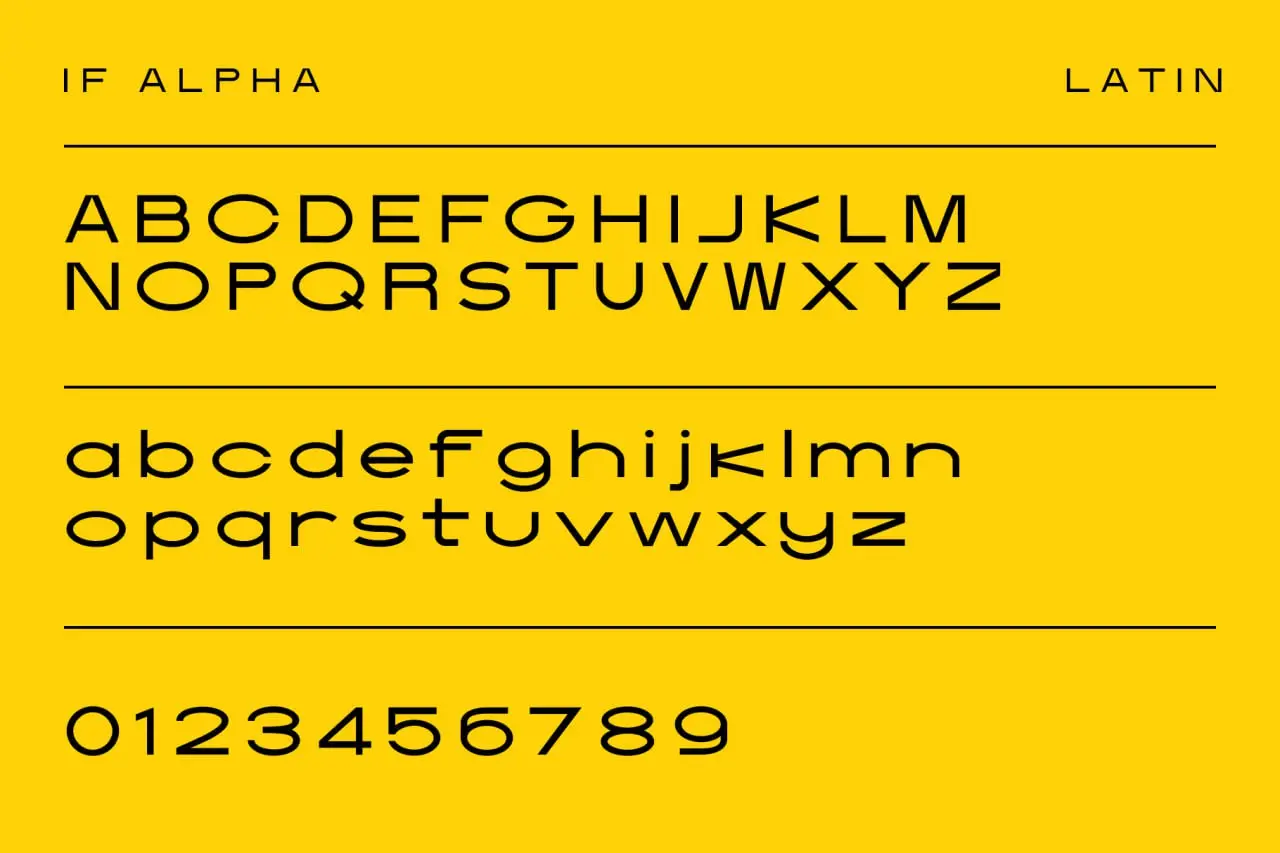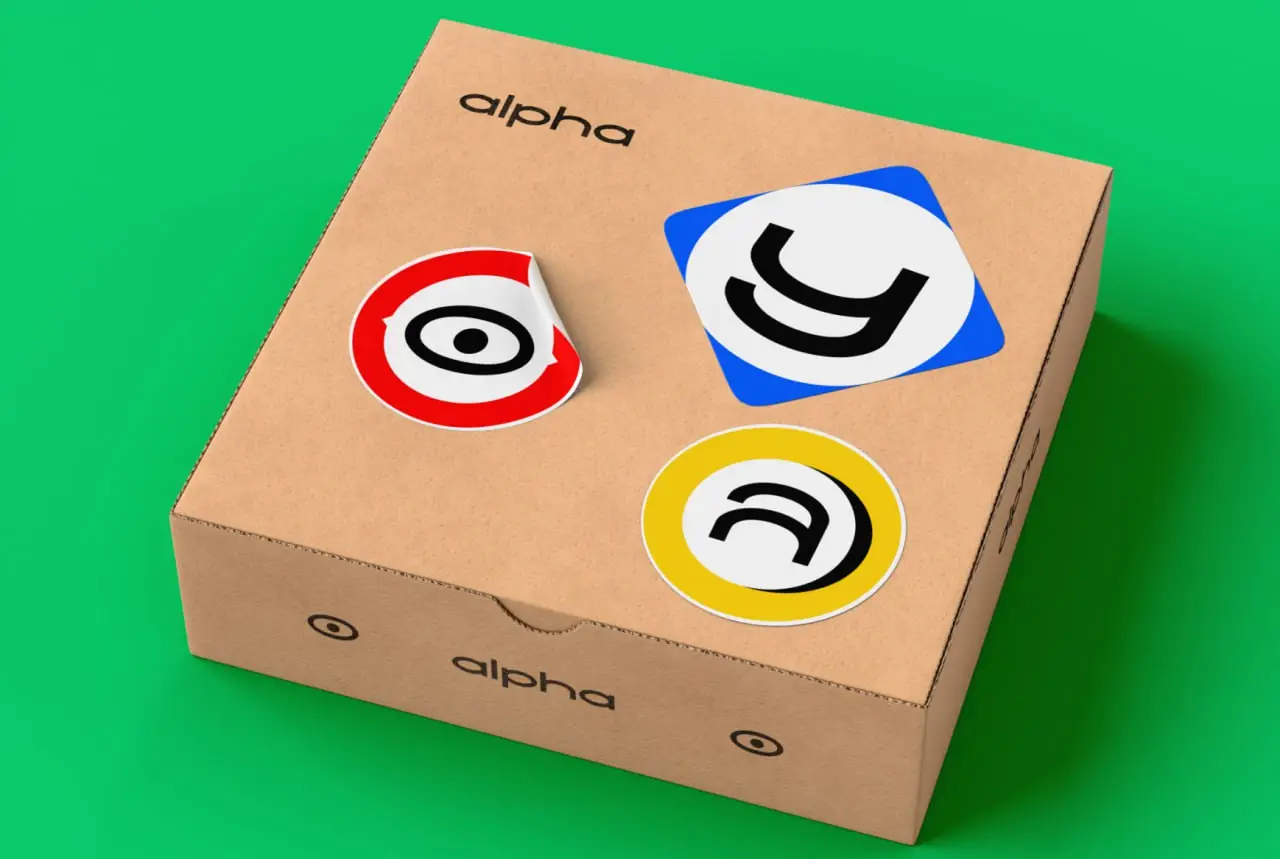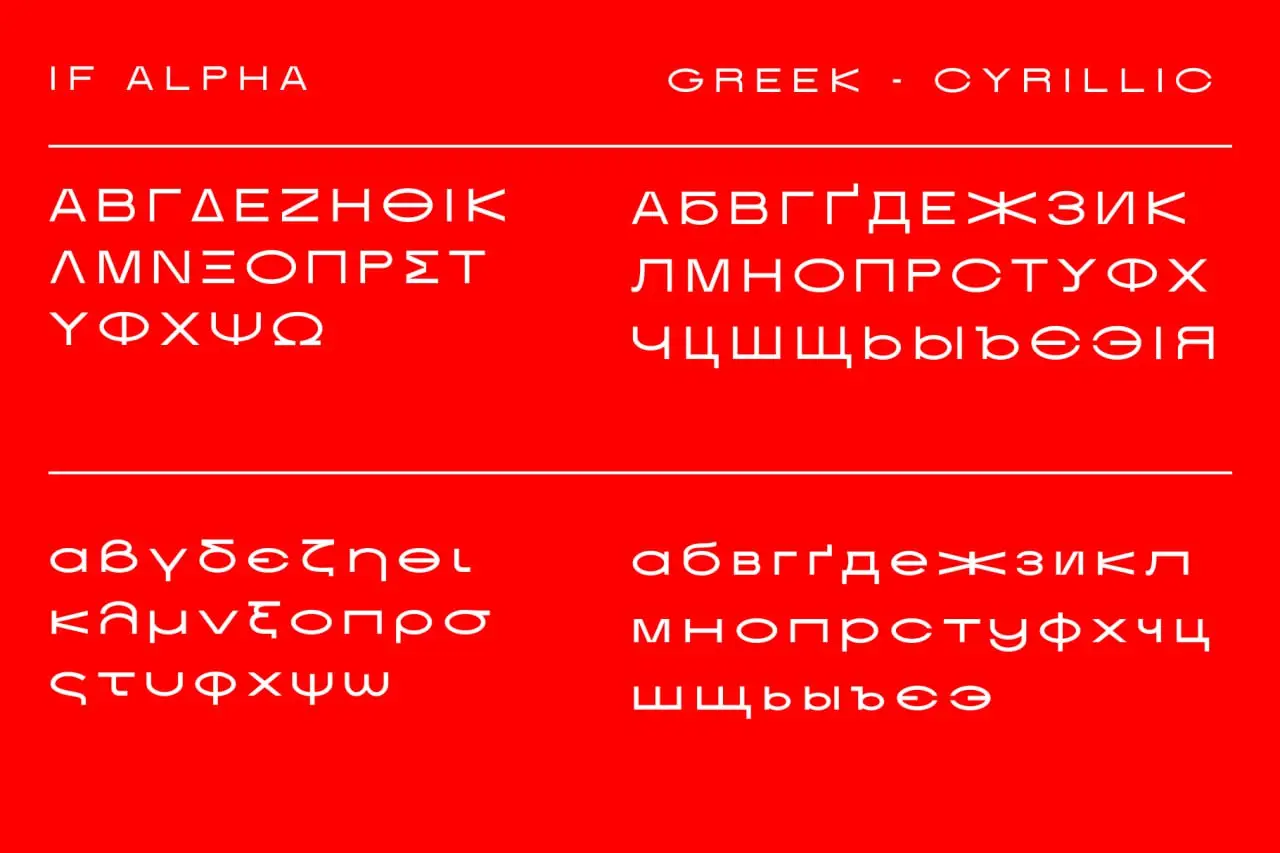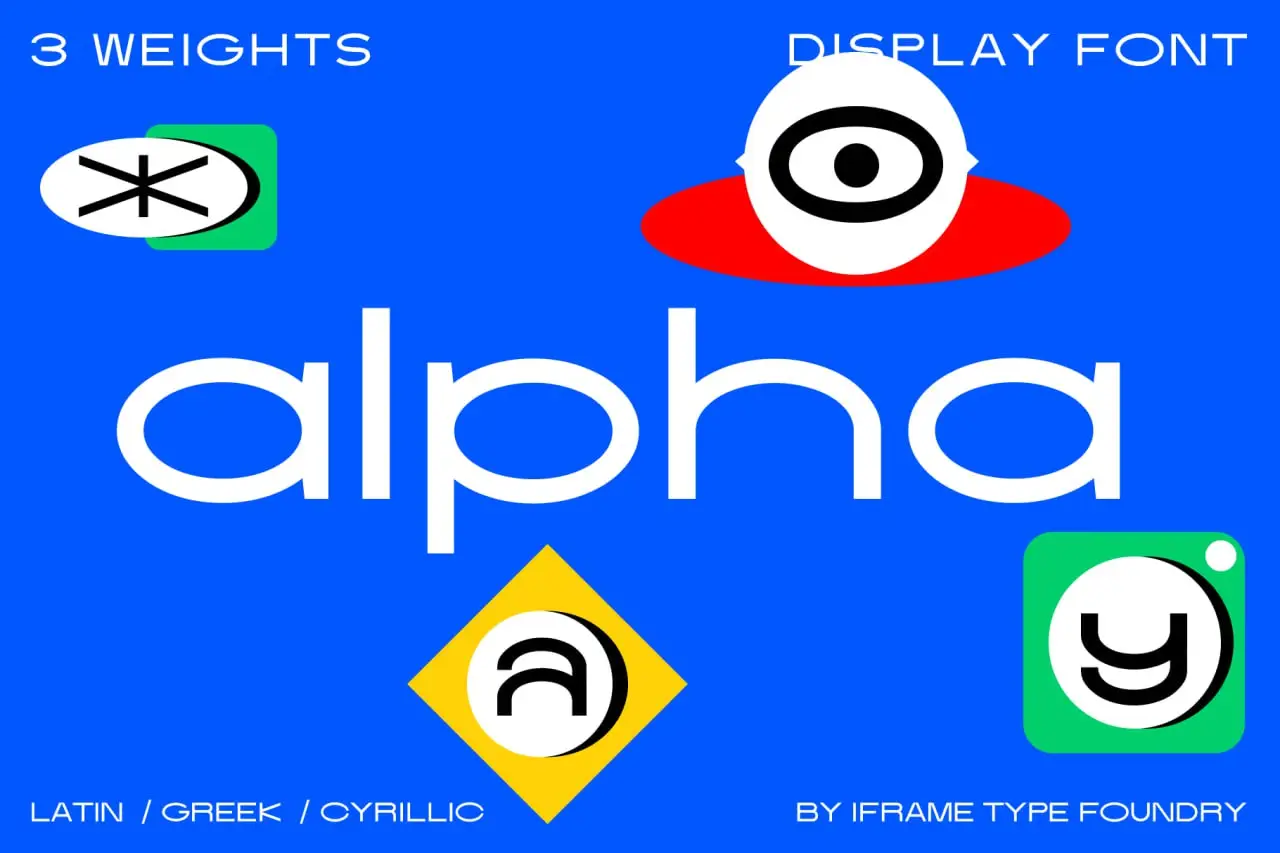
If Alpha Display Font By Iframe Type Foundry
If Alpha Display Font by Iframe Type Foundry is a striking typeface designed to make a bold statement. This font features a unique display style that combines modern aesthetics with a touch of creativity, making it perfect for various design projects.
Utilize If Alpha for branding, logos, posters, and any project where you want to capture attention. Its distinctive style is ideal for both print and digital media.